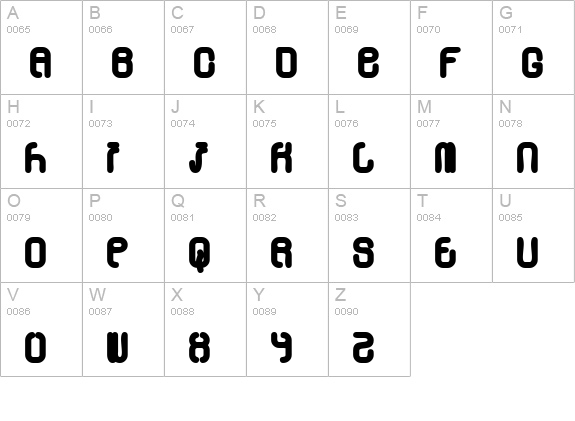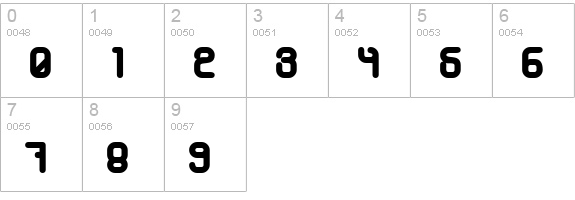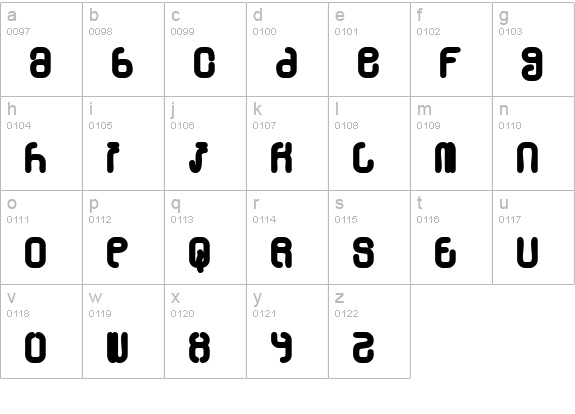
Skylab 600 Font Details
Skylab 600 font is a stunning display font that exudes a sense of modernity and elegance. With its sleek and sophisticated design, this font is perfect for capturing attention and making a statement. Featuring clean lines and a unique, futuristic style, Skylab 600 adds a touch of professionalism to any project. Whether it's for branding, advertising, or graphic design, this font is sure to impress. But what sets Skylab 600 font apart is not just its remarkable design, but also the fact that it is free. That's right, this incredible font is freely available to download at FontsMarket.com. So you can enhance your creative endeavors without breaking the bank. With Skylab 600 font, you have the opportunity to create eye-catching visuals that leave a lasting impression. Its versatility allows you to use it in a variety of contexts, from websites to printed materials, ensuring that your message is conveyed with style and refinement. Don't miss out on this amazing opportunity to elevate your design game with Skylab 600 font. Download it for free at FontsMarket.com and let your creativity soar to new heights.